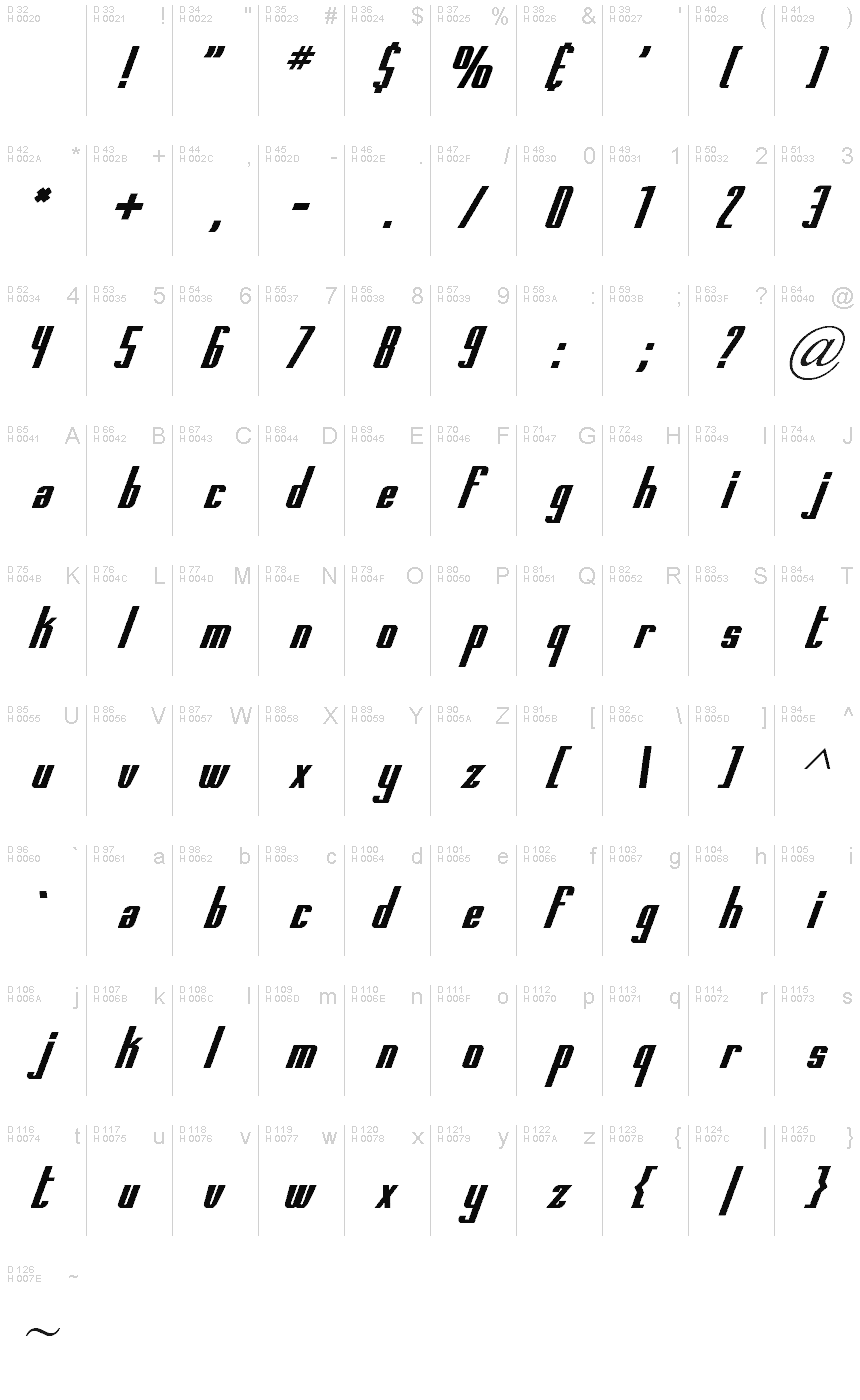
Printed Circuit Board Italic
"Printed Circuit Board" is a bold, techno-inspired font that exudes a striking industrial aesthetic. Inspired by the HP logo, this condensed italic display typeface features sharp, angular letterforms that evoke the intricate circuitry of printed circuit boards. Its sleek, high-contrast design lends itself perfectly to digital and technological applications, from logos and branding to user interfaces and technical documentation. With its strong, confident presence, "Printed Circuit Board" commands attention while maintaining a clear, legible form - making it an excellent choice for headings, titles, and display text that require a touch of modern, industrial flair.
The font's versatility extends beyond technology-focused projects, as its unique visual style can also elevate design work in the realms of product packaging, signage, and even fashion. Designers seeking to infuse their creations with a bold, futuristic aesthetic will find "Printed Circuit Board" to be a compelling and impactful typographic solution.